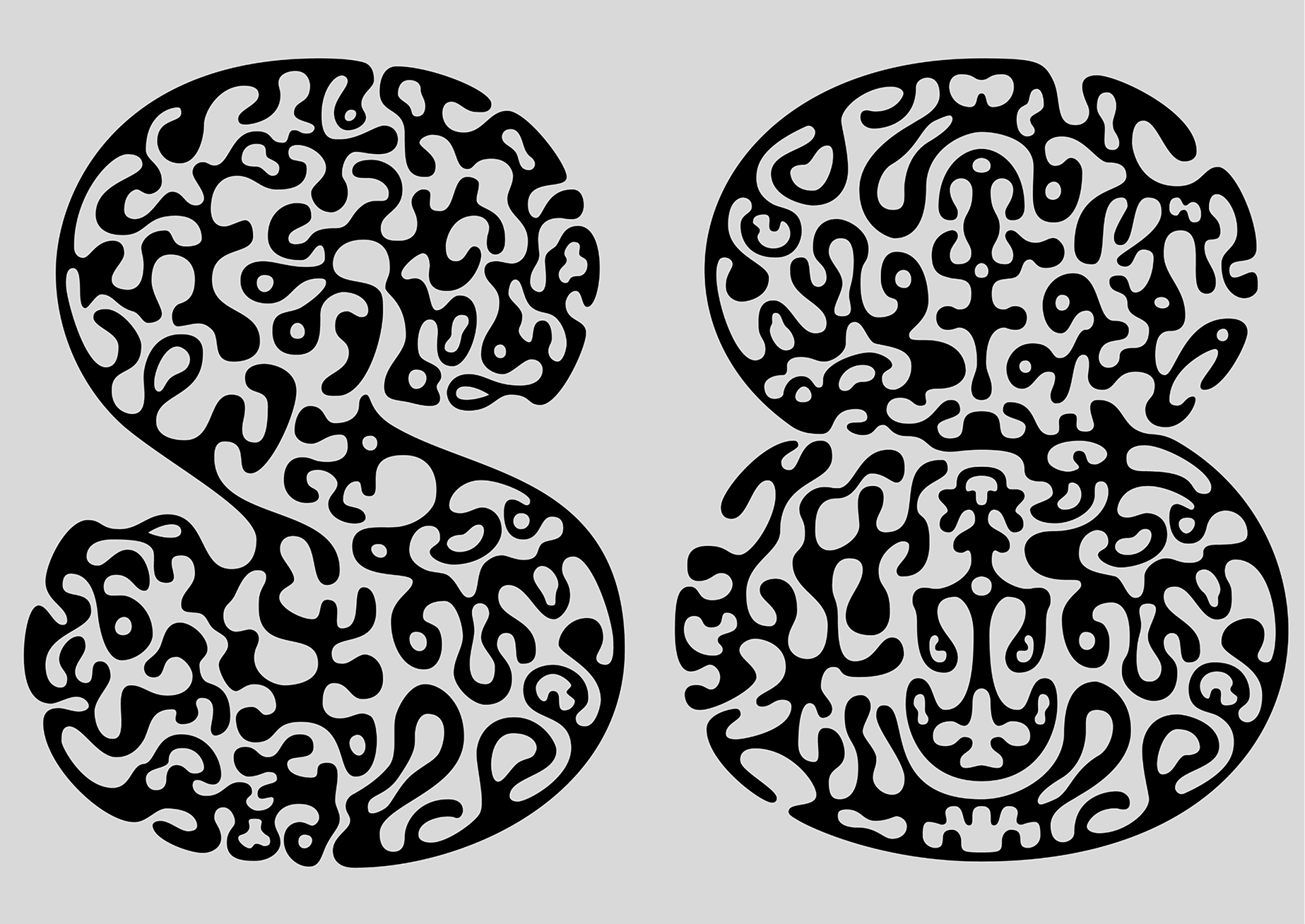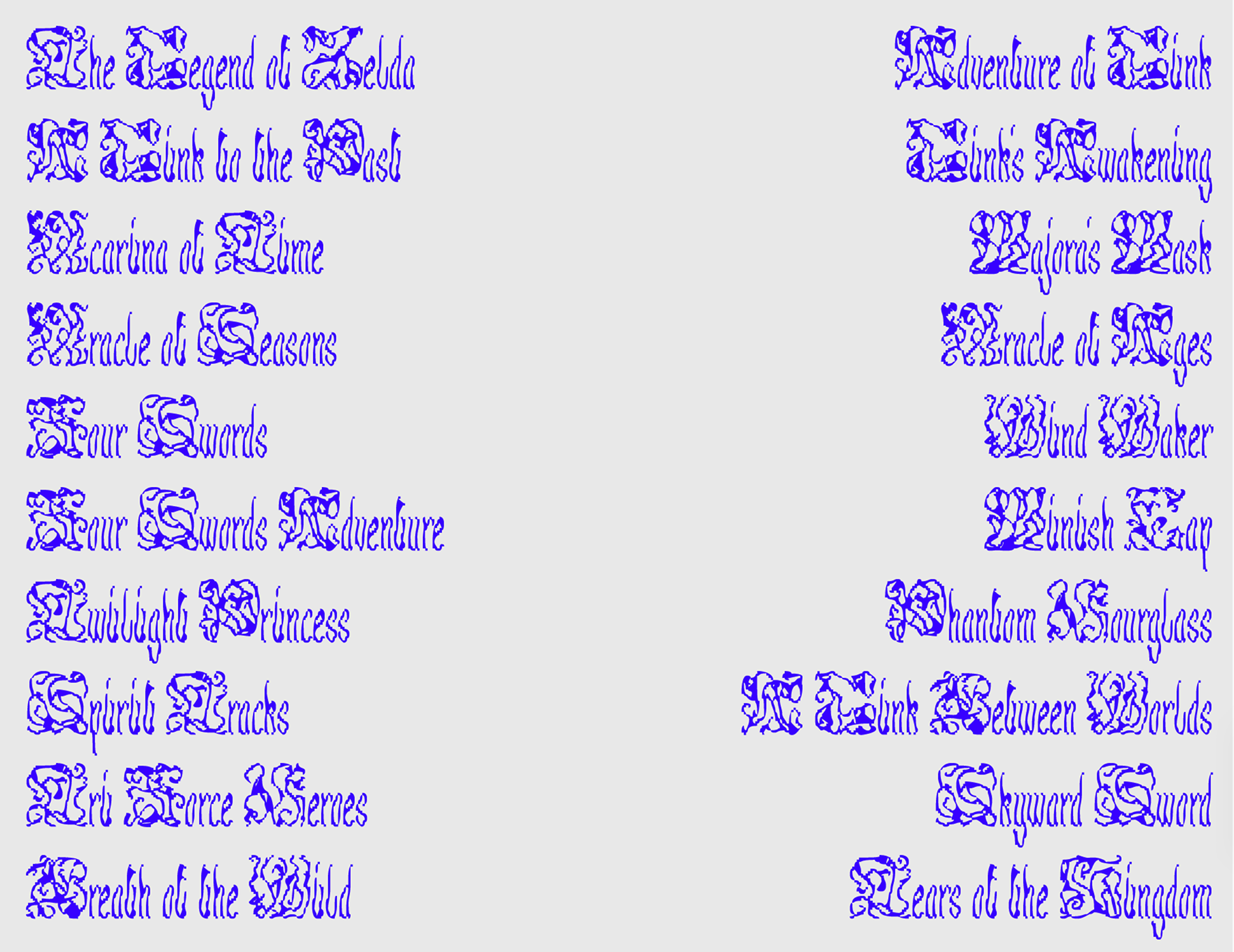
Adelina Shaidullina: What does Daytona Mess mean?
Anne-Dauphine Borione: It’s basically a play on words. I’m a huge fan of Lana Del Rey, and one of her songs is called Daytona Meth. I changed the second word as I’m a bit messy in my art practice. I also wanted a reference to something American because I’ve been wanting to live in the USA for as long as I can remember. I wanted to have an artist name. Even in France, my real name is a rare one. I wanted something that I could pour myself into and that is not related to me directly.
A spread from Lolli Pop, a zine about dope women in music, featuring Lana Del Rey, 2019. Design: Anne-Dauphine Borione
AS: Lana Del Rey was also the inspiration for your first tattoo.
ADB: Yes, absolutely.
AS: It’s set in Seagram from Dafont that you’ve erased serifs from. What do you think of this design now, after graduating from TypeMedia?
ADB: I think it’s really bad in every possible way, but I’m also quite proud of it. When I look in the mirror and see my tattoo, I get reminded that type design is a journey, a never-ending journey. There will always be something to learn. So for me, it’s really symbolic, it’s a reminder that I always have to progress, which is what I love about type design.
AS: Do you tend to find inspiration in immature designs?
ADB: I like extremely well-crafted, high-end, elegant serif typefaces. At the same time, I like completely berserk display typefaces that are not necessarily aesthetic but that have some personality to them. So maybe I might be inspired by a less beautiful design, but it has to be well-crafted.
Baleze Display by Anne-Dauphine Borione
AS: How did you work with references and inspirational pieces?
ADB: When I started with type design, I really liked looking at five different typefaces and thinking: how can I mix them to make something unique? I was reading a book about creativity the other day, and the author was saying that one of the ways to be creative is taking two things that are not necessarily related and making them work together. Maybe that’s not really ethical. But at first, that was really helpful. I think I moved away from this practice now, though, and try to think more by myself.
AS: I am sure, Erik van Blokland would say it’s a legit way to design type, but probably not an ethical way to make illustrations. Do you also find typographic inspiration in video games?
ADB: I say that all the time that music and video games are my main inspirations. One of my favourite video games is Baldur’s Gate 3, and the typeface used in it is Quadraat by Fred Smeijers, who actually was one of my teachers at TypeMedia. So I had the occasion to talk to him about it.
But other than that, I am mostly inspired by the feel and aesthetic of video
From the Live in Baldur’s Gate poster series. Design: Anne-Dauphine Borione
Baldur’s Gate 3 screenshot. Set in Quadraat
AS: You mean you also find inspiration in the character design?
ADB: Absolutely. I won’t do it for a living, but I’m a huge fan of character design. I love Arcane, and the character design of the main characters, Jinx and Vi, influenced one of my last typefaces, a variable color typeface. But my work is influenced not only by the visuals, but also by the characters’ personalities, and the materials of the world they live in, the textures, the sounds… I can see the texture of armour in a video game and create a typeface from it. I believe that you can make everything in type design, and you can make type from everything.
AS: It seems that legibility isn’t the most important characteristic of the typeface for you. What is, then?
ADB: An extreme display typeface can work for me if the aesthetic makes sense with the concept behind. So if I’m working on a typeface that references a certain video game or something more abstract, like an emotion, I want the aesthetic of the typeface to reference it both visually and in its feel, the impression, the thing it makes people feel. It’s similar to artistic practice.
Plasmid by Anne-Dauphine Borione inspired by mitosis
AS: So, can typefaces of such kind work as just graphics?
ADB: For me, absolutely. I like type design because you can make words, sentences, and text without
AS: As your first degree is in arts I have to ask you: have you ever thought about what a proper exhibition showcasing type would look like?
ADB: It’s constantly in the back of my mind. I think if I were to go back to fine arts now, this is what I would be doing now. I’m really envisioning something like the interior of a dungeon, but everything centered around type, and very interactive. That has to really demonstrate the character of the typeface, not just describe it with text. I would love to do that one day.
AS: Which one of your typefaces would you choose to do this?
ADB: I’m now working on my graduation project from TypeMedia, it’s called Dargon. It received the Gerard Unger Scholarship, so I am still very much working on it. Dargon would be my dream typeface to exhibit.
Morris Gotisch by William Morris, 1891
Golden Type by William Morris and Edward Prince, 1890
AS: That’s actually the last question I have: what are the must-visit places in Paris for someone who loves typography?
ADB: I have no idea! I’m the worst Parisian in the world! I would guess The Bibliothèque Nationale de France is the right place because they have a huge collection of manuscripts and old books. This would be my number one idea.
AS: I was also told to go to Père Lachaise Cemetery!
ADB: It would be a much cooler answer if I said that!